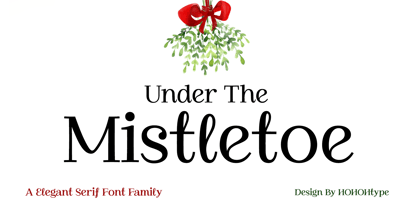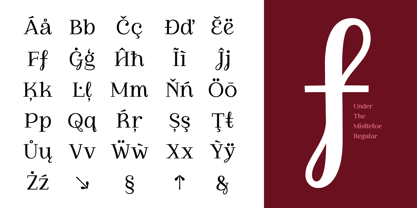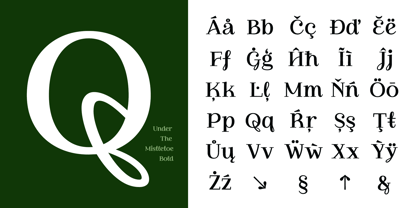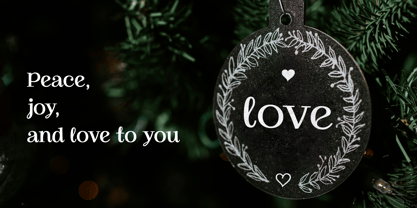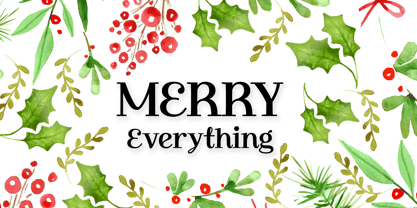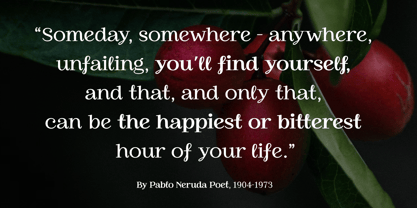
Under The Mistletoe
by HOHOHtype
The Under The Mistletoe Font Family was designed by Saebom Lee and published by HOHOHtype. Under The Mistletoe contains 2 styles and family package options. More about this family
The font "Under The Mistletoe" possesses an overall elegant and classic feel, while also embodying the characteristics of a display typeface with decorative elements. 🌟 Unique Design Features of "Under The Mistletoe" 1. Serif Style: This font is a classic serif font, with small decorations (serifs) at the end of each stroke. This enhances readability and conveys a traditional, luxurious feel. The delicate and smooth shape of the serifs emphasizes elegance and sophistication, creating a classic yet sophisticated impression. 2. Stroke Contrast: The striking contrast between thick and thin strokes lends rhythm and sophistication to the letters. The contrast between thick vertical strokes, thin horizontal strokes, and delicate serifs particularly highlights the letterforms. 3. High Readability and Legibility: The letterforms themselves are clear and open, and appropriate letter spacing ensures excellent readability even in long sentences. This is effective not only for body text but also for display purposes such as titles, quotes, and advertising text. 4. Decorative Elements: The smooth, handwritten flow of curves and consonant-vowel connections (e.g., G, f, l, j, y, etc.) adds a friendly, warm atmosphere.
Designers: Saebom Lee
Foundry: HOHOHtype
Type Foundry in South Korea, by designer Saebom Lee. HOHOHtype designs professional and sophisticated multilingual typefaces in a variety of styles for print and digital use.HOHOHtype offers text and display fonts with a lot of OpenType functions supporting the following languages:Afrikaans Catalan Croatian Czech Esperanto Hungarian Latin Latvian Lithuanian Maltese Northern Sami Polish Serbian Slovak Slovene Sorbian Turkish Welsh (+ Belarusian Bulgarian Kazakh Kyrgyz Macedonian Montenegrin Russian Serbian Tajik (a dialect of Persian) Turkmen Ukrainian and Uzbek).